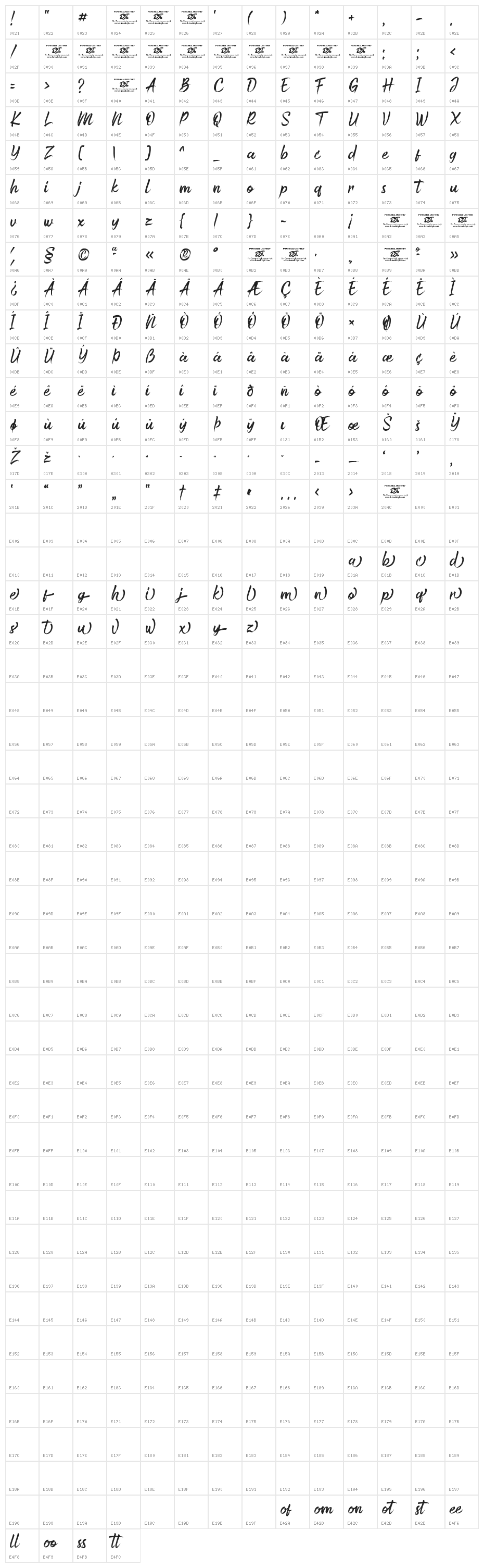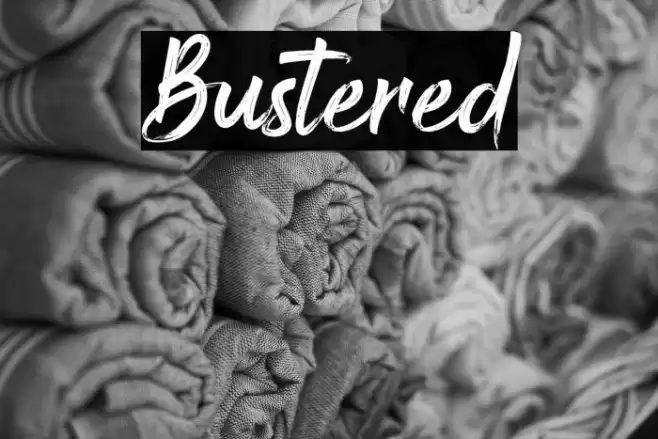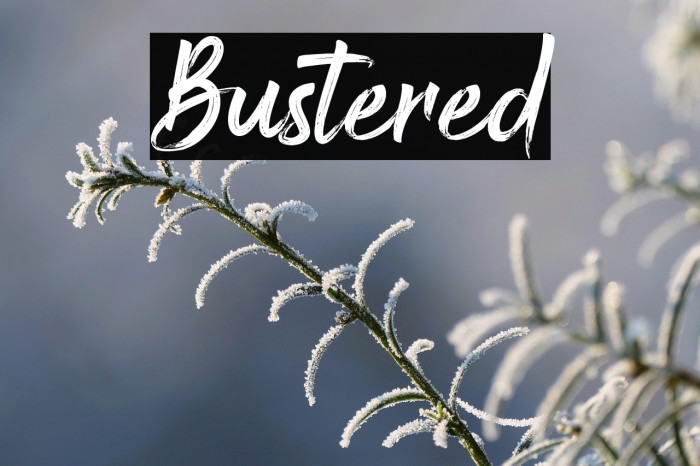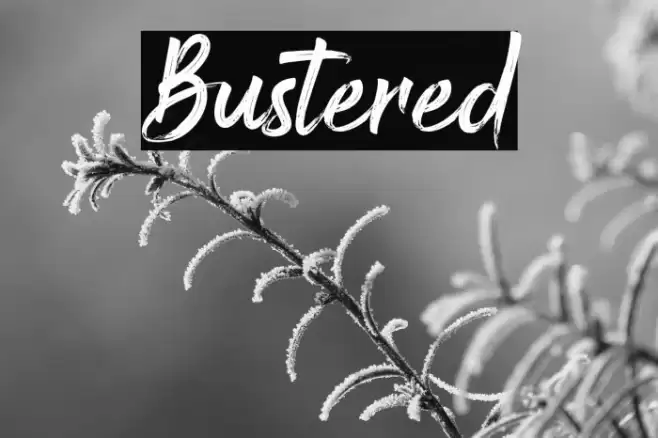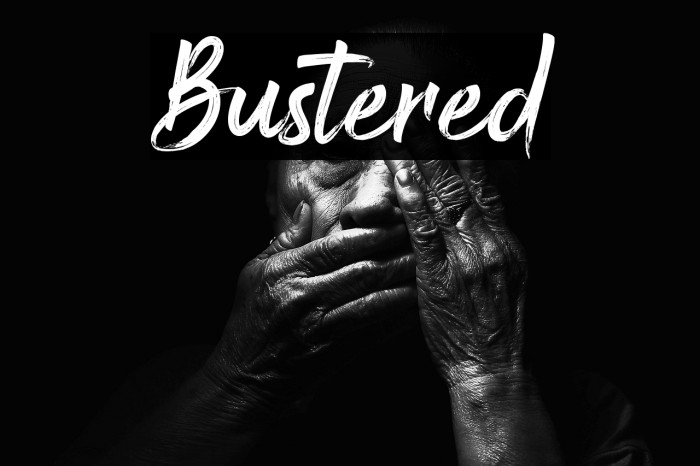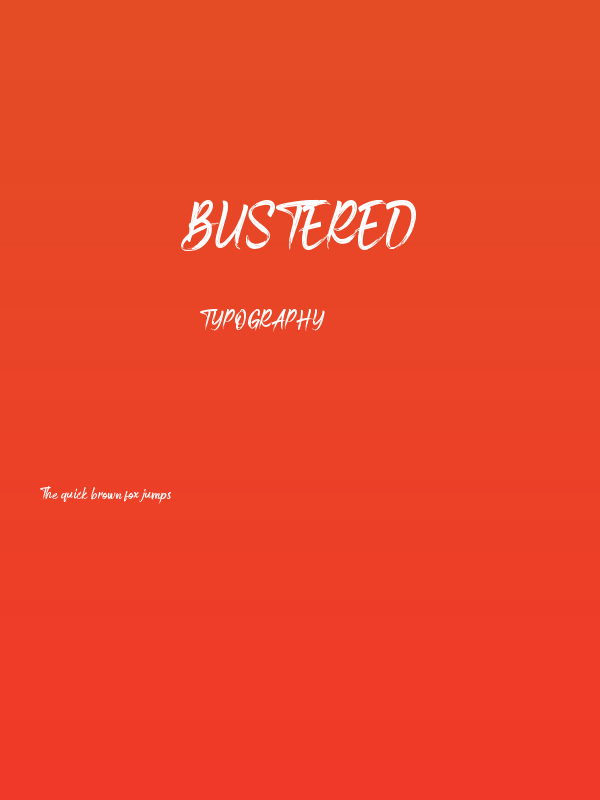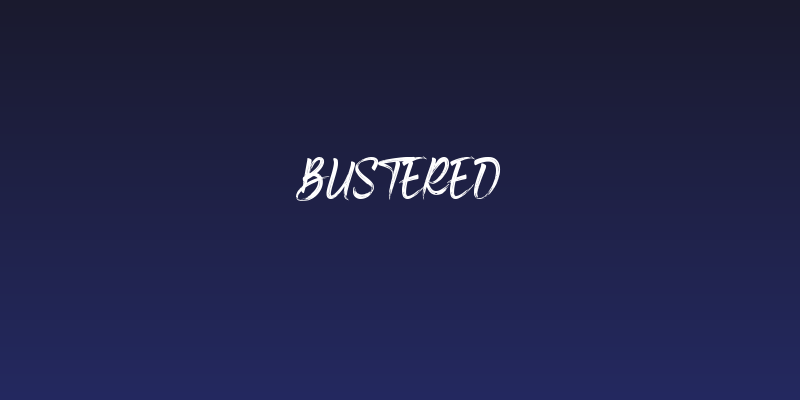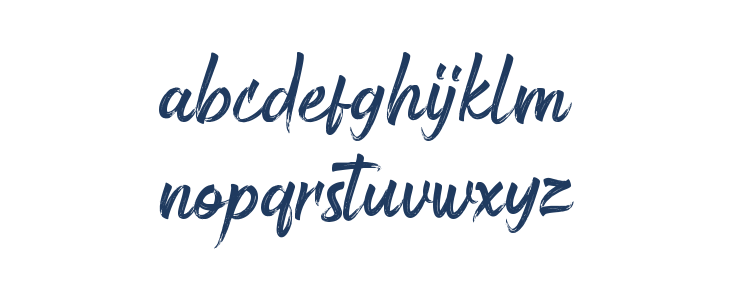
Bustered Font
Bustered Description
This font features a bold, expressive brush script style with a dynamic and energetic appearance. The strokes are thick and exhibit a high contrast, giving it a dramatic flair. The letters have a hand-painted look, with irregular edges and a sense of movement, making it ideal for creating eye-catching designs. The uppercase and lowercase letters are consistent in style, maintaining the same brush-like texture throughout. The special characters complement the overall aesthetic, adding to its versatility.
| Proposed Projects | Ideal for branding, posters, headlines, and any design project needing a bold, artistic touch. |